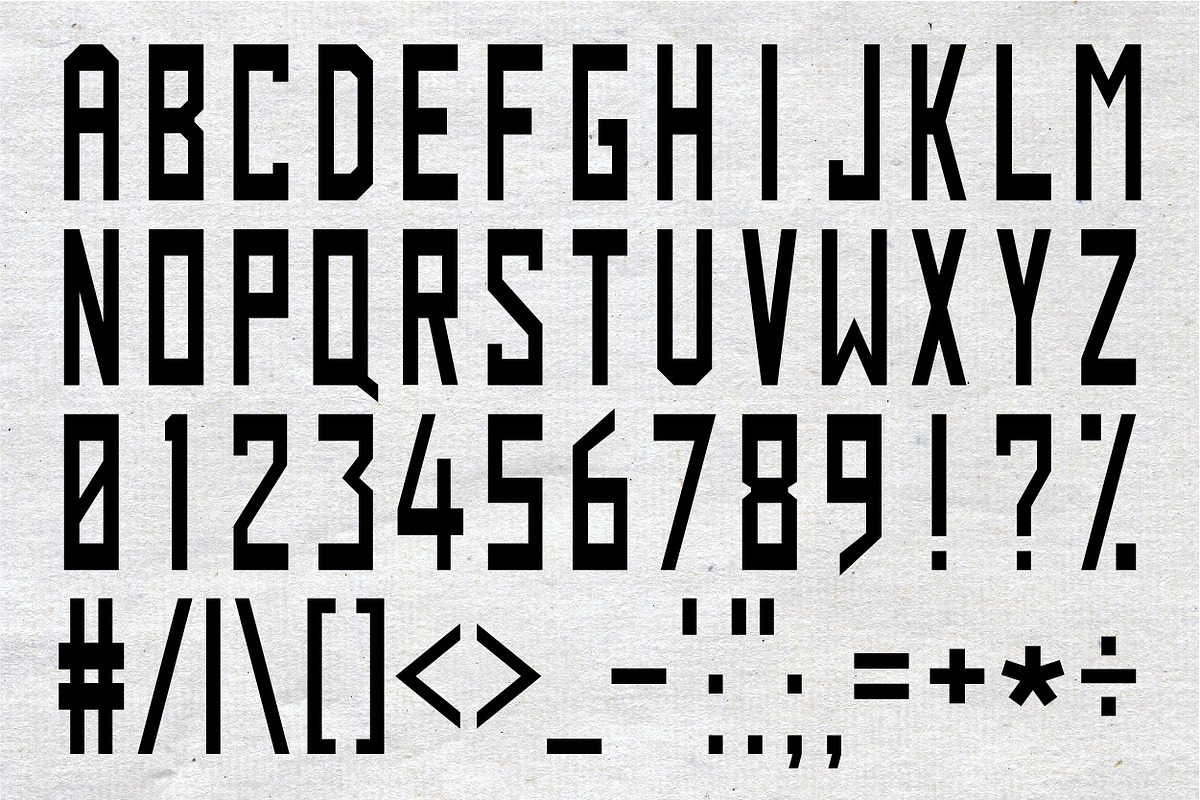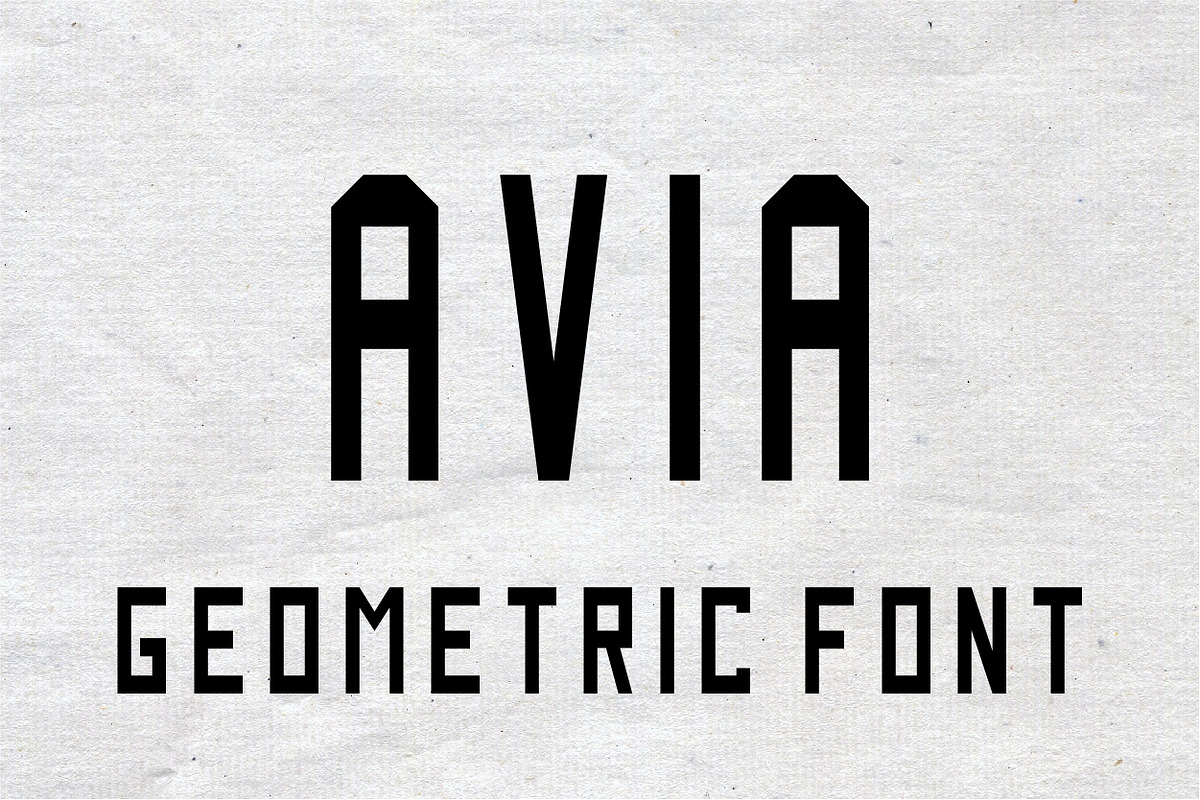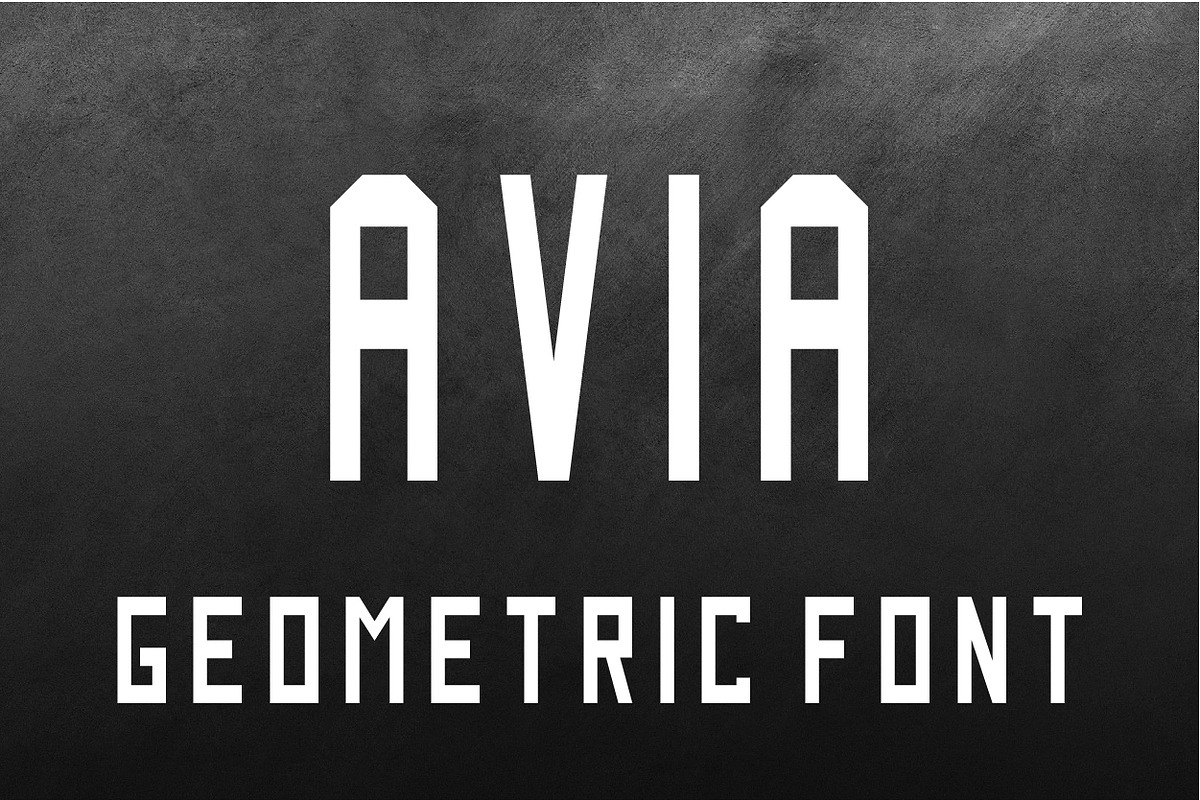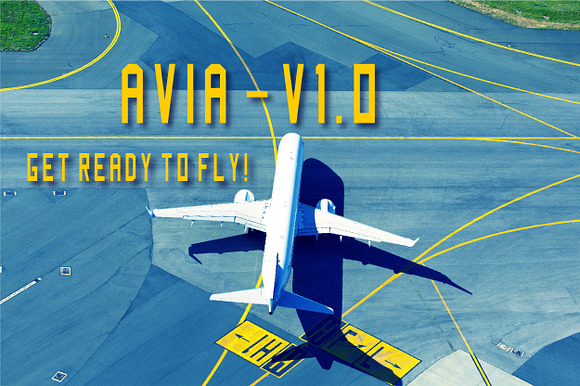
AVIA geometric font
Strict and geometric font. Perfectly suitable for headings, titles, logos and writing of any large inscriptions.
Headlines, Titles, Captions
Movies, Posters and T-shirts
AVIA geometric font by NKuvshinov fits naturally into Branding, posters, packaging, typography.